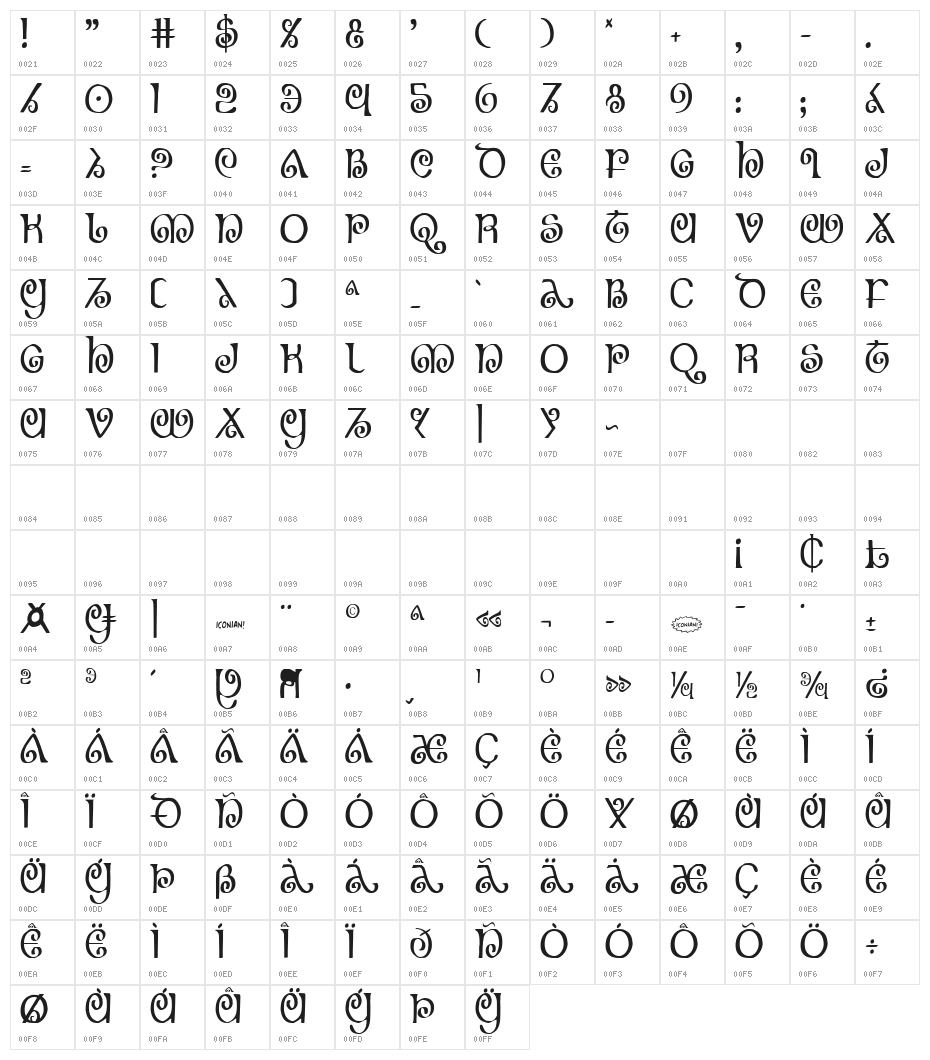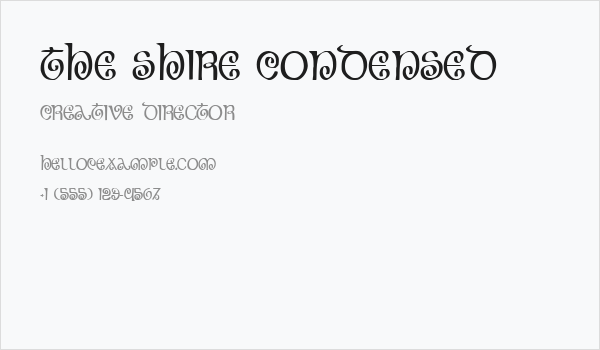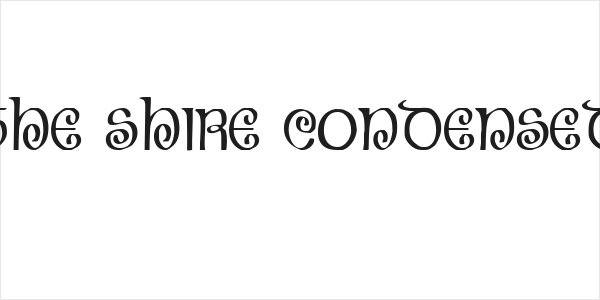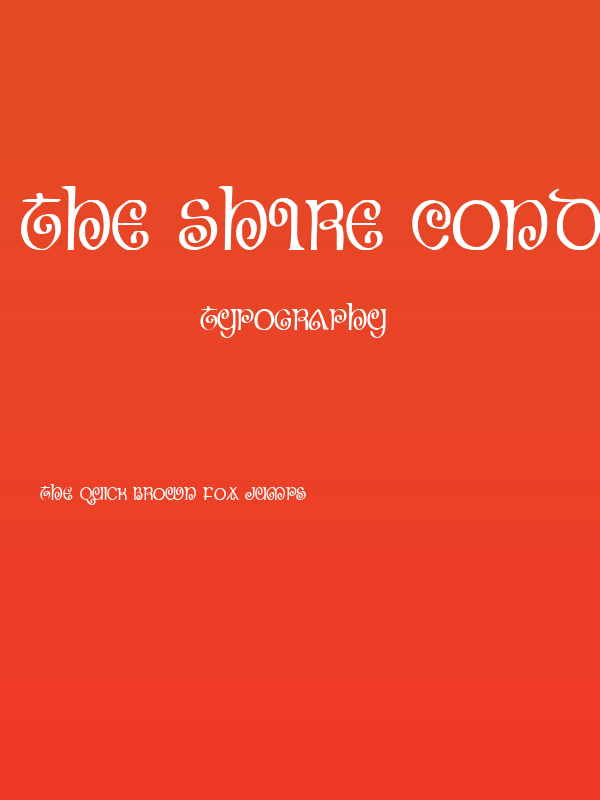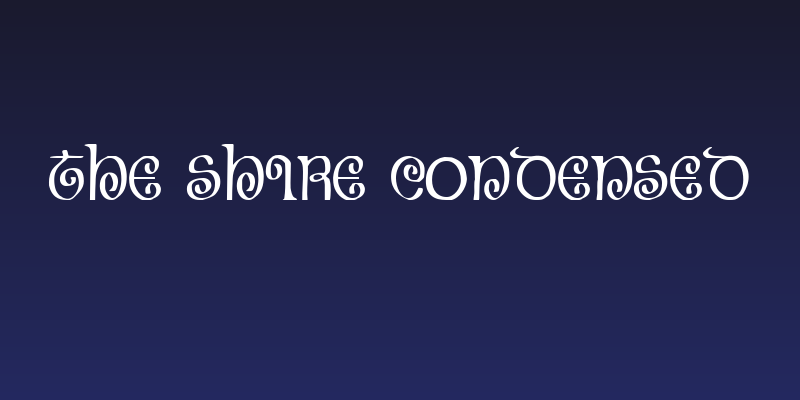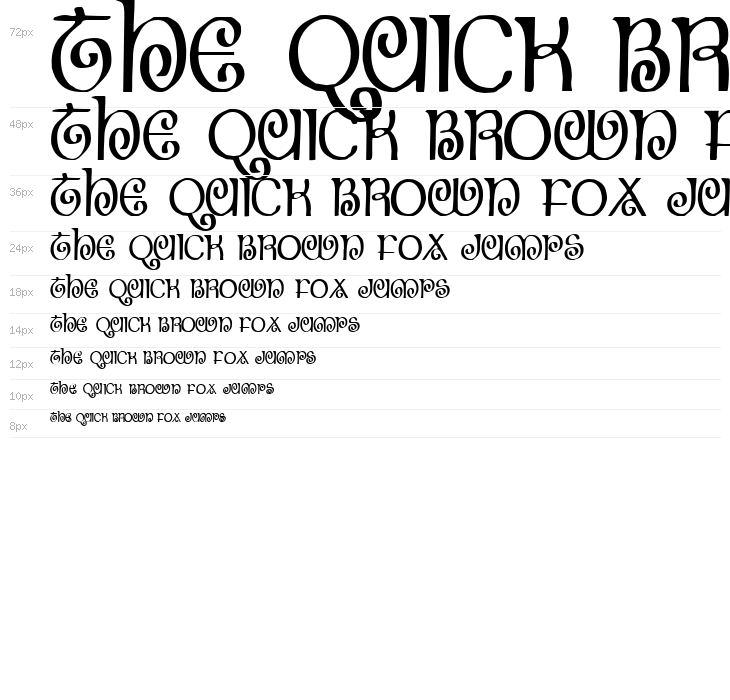
The Shire Condensed Font
The Shire Condensed Description
This font features a whimsical and decorative style, characterized by its intricate curls and loops that give it a fantasy-like appearance. The letters are bold and condensed, with unique embellishments that make each character stand out. The uppercase and lowercase letters maintain a consistent design, while the numbers and special characters integrate seamlessly with the overall aesthetic. The font's playful yet elegant design makes it suitable for projects that require a touch of fantasy or medieval flair.
| Proposed Projects | Perfect for fantasy book covers, themed event invitations, or any project requiring a medieval or magical touch. |